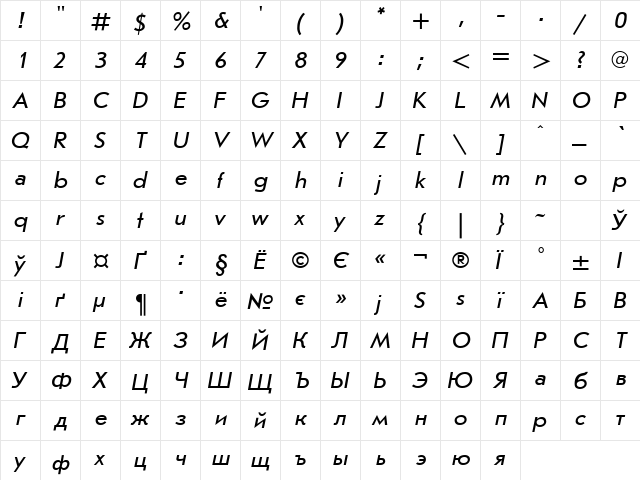
JournalSans Italic Cyrillic
Design Context for JournalSans Typeface
JournalSans offers clean, dependable letterforms without strong stylistic allegiance, making it a practical choice for designers who need flexibility. The slanted form adds forward momentum and visual energy.
Pro Tip: Try JournalSans for annotation and caption copy alongside an upright companion — the contrast in angle creates a dynamic but ordered typographic system.